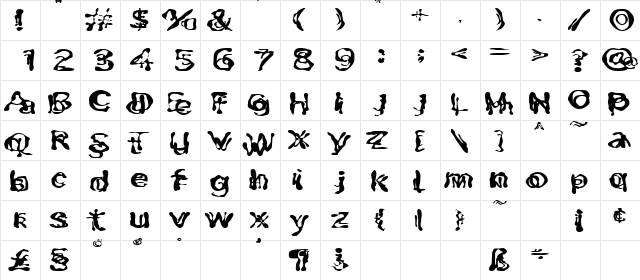
MixUpExtended Regular
Design Context for MixUpExtended Typeface
MixUpExtended is a composed and adaptable typeface that performs quietly and consistently across a wide range of design contexts.